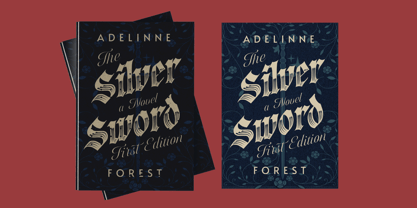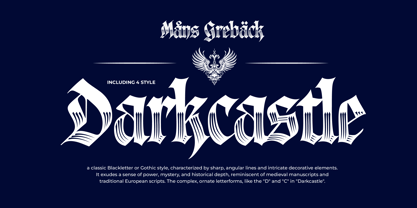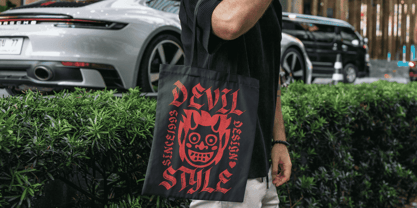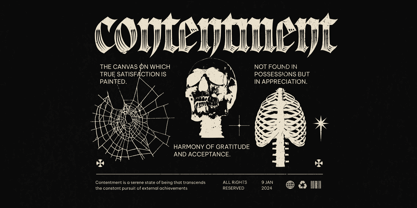
Darkcastle
by Mans Greback
The Darkcastle Font Family was designed by Måns Grebäck and published by Mans Greback. Darkcastle contains 4 styles and family package options.
Darkcastle is a bold and commanding blackletter font that instantly evokes the medieval era. Its dramatic letterforms are adorned with sharp decorative lines, giving it a powerful illumination.
Perfect for projects that require a sense of historical grandeur or mystical allure, Darkcastle captures the essence of medieval calligraphy, bringing a touch of darkness and elegance to the page.
The font is built with advanced OpenType functionality and guaranteed top-notch quality, containing stylistic and contextual alternates, ligatures, and more automatic and manual features; all to give you full control and customizability.
It has extensive lingual support, covering all Latin-based languages, from North Europa to South Africa, from America to South-East Asia. It contains all characters and symbols you'll ever need, including all punctuation and numbers.
Darkcastle